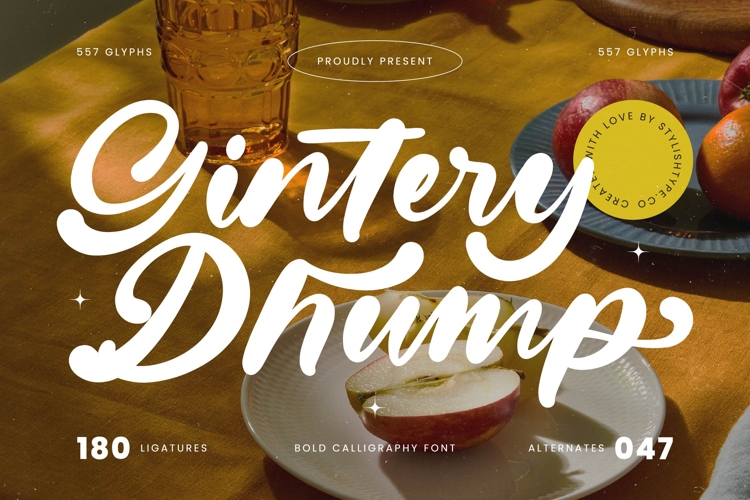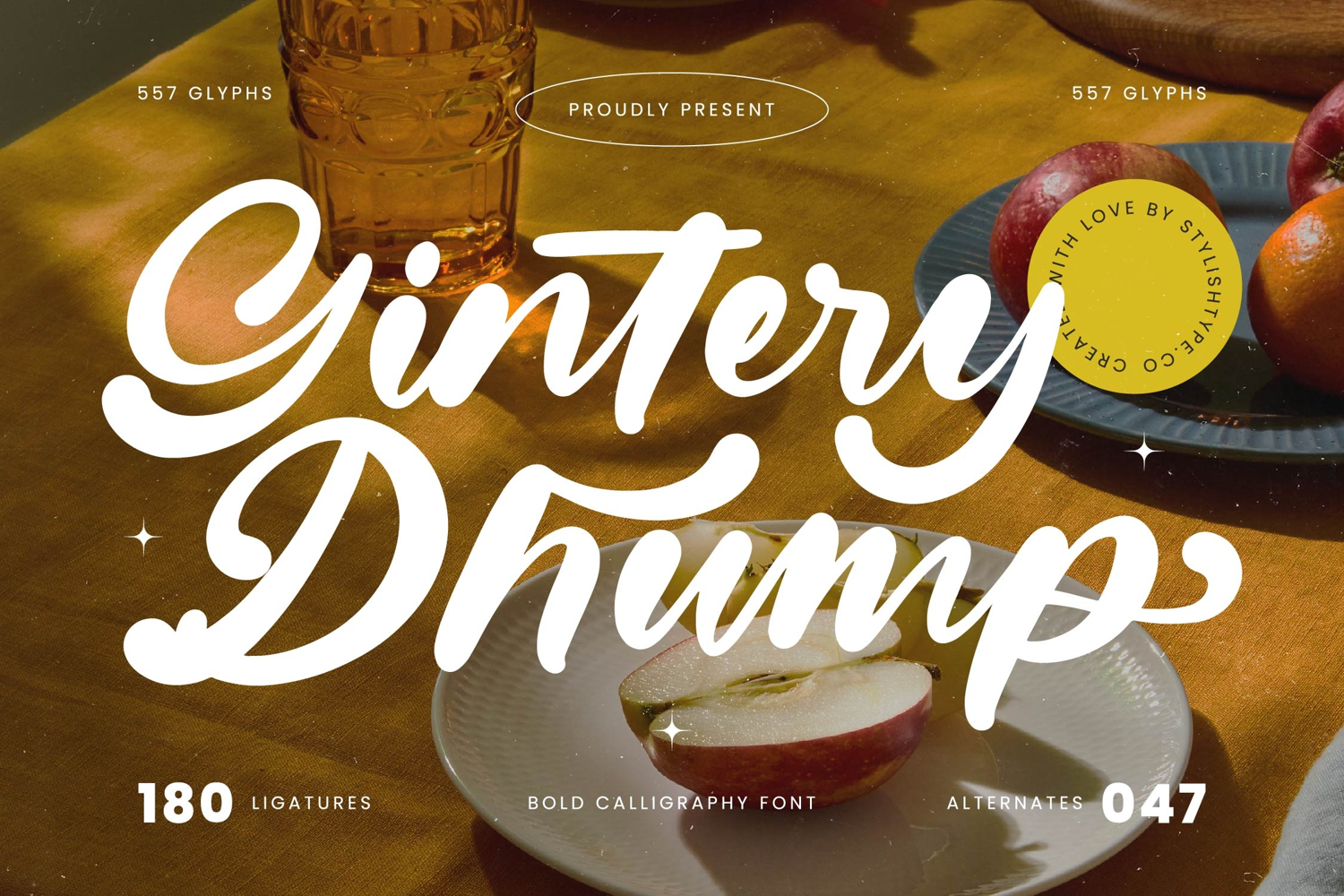
Gintery Dhump - Bold Calligraphy Font
Elevate your designs with the undeniable charm of Font Gintery Dhump - Bold Calligraphy Font Script, a masterful creation marrying traditional calligraphic artistry with contemporary boldness. This exquisite bold calligraphy font commands attention, offering an authentic handcrafted feel that exudes warmth and personality. Its flowing, connected strokes and generous curves bring elegance and approachable character, an indispensable asset for distinctive branding.
Unlock unparalleled creative possibilities with the rich feature set of Font Gintery Dhump - Bold Calligraphy Font Script. Boasting an impressive collection of dynamic ligatures and stylistic alternates, this font allows for customized, organic typography, ensuring your text never looks static. The inherent boldness provides exceptional legibility and impact, perfect for creating high-impact visuals that resonate deeply with your audience.
Discover the perfect solution for your next signature project. Font Gintery Dhump - Bold Calligraphy Font Script is ideally suited for luxury branding, bespoke invitations, premium packaging design, and compelling editorial layouts. Its distinctive aesthetic also excels in eye-catching social media graphics, elegant website headers, and artisanal product labeling, where refined craftsmanship conveys crucial brand value.